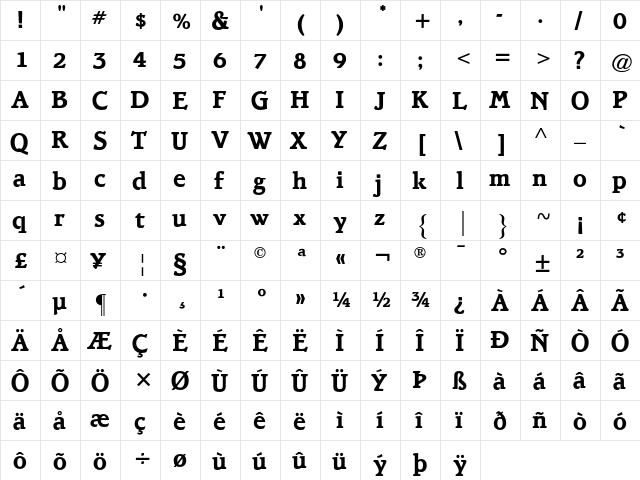
Bramley AT Bold Regular
Design Context for Bramley AT Bold Typeface
Bramley AT Bold takes a measured approach to typography — its balanced proportions and neutral character make it a reliable workhorse for both digital and print work. The heavy weight commands attention and anchors typographic hierarchies.
Pro Tip: Pair Bramley AT Bold with a font of contrasting weight or personality to build a more expressive typographic hierarchy.